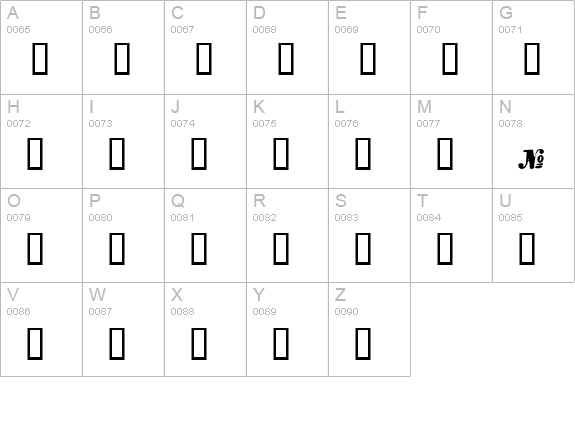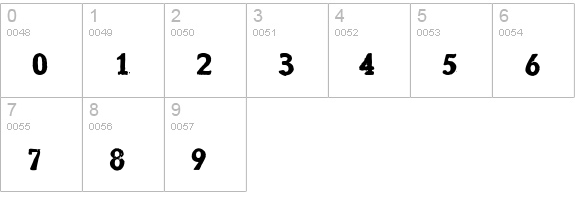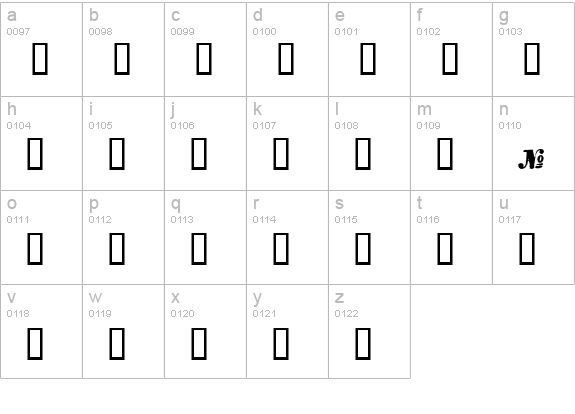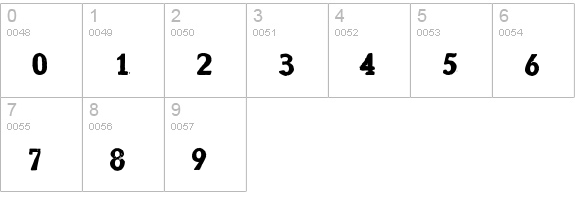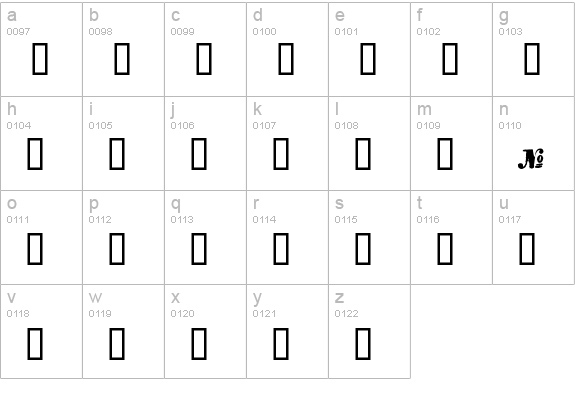
Numero font is a modern and stylish typeface that adds a touch of sophistication to any design project. With its clean lines and elegant curves, Numero is perfect for a wide range of applications, from branding to editorial design. This versatile font comes in a variety of weights and styles, making it suitable for both headlines and body text. The best part? Numero is completely free to download at FontsMarket.com. Whether you're a professional designer or just looking to add a fresh new look to your creations, Numero is the perfect choice. Download it today and elevate your designs with this beautiful and contemporary font.